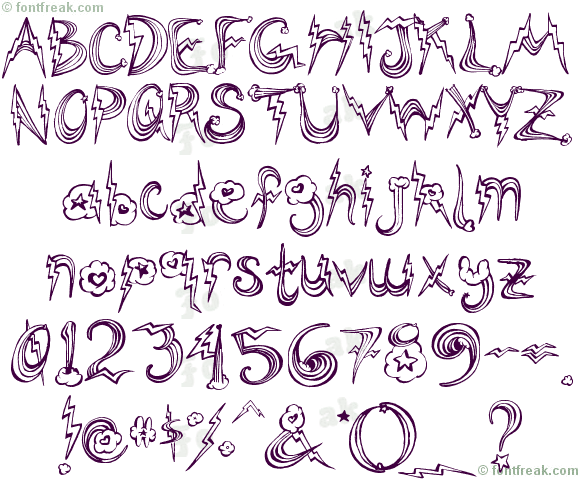
PonyRides
About PonyRides
The PonyRides font by XEROGRAPHER FONTS is a captivating decorative typeface that embodies a playful and whimsical character. Released in 2012, this font features a unique blend of curves and sharp angles, making it a standout choice for projects that require a touch of creativity. The strokes vary in weight, contributing to an inviting and dynamic appearance. With its lighthearted design, PonyRides incorporates charming decorative elements such as stars and hearts, further enhancing its playful vibe. The spacing between the characters is well-balanced, ensuring legibility while maintaining the font's artistic flair.
This font is particularly well-suited for a variety of creative applications. It can elevate wedding invitations with its enchanting design, adding a sense of joy and celebration. For children's book covers or playful branding projects, PonyRides brings an element of fun that resonates with younger audiences. Additionally, it works beautifully for restaurant menus, especially in casual dining establishments that seek to convey a friendly atmosphere. Movie posters targeting family audiences can also benefit from the vibrant charm of this typeface, as it captures attention and conveys a sense of adventure.